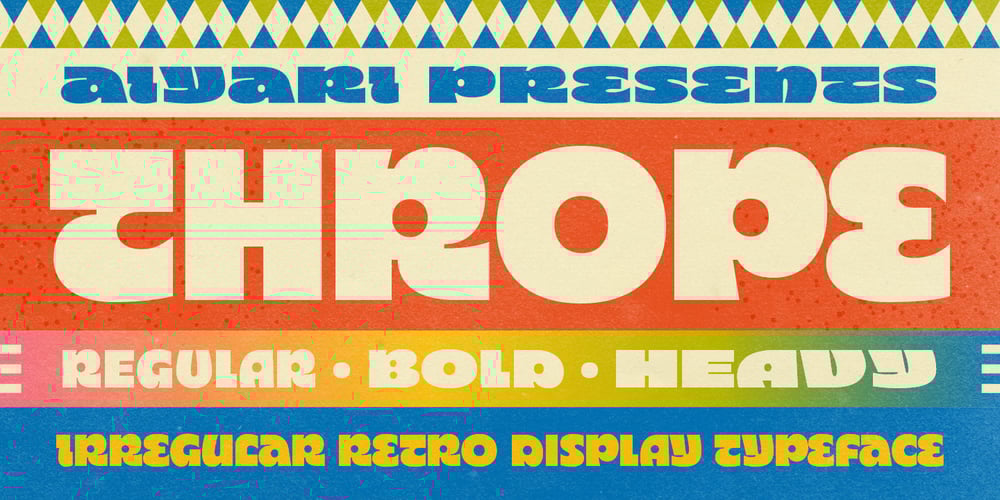
Ayr Thrope Font Family was designed by Ricky Rinaldi and published by Aiyari. Ayr Thrope contains 3 styles and family package options. Introducing Thrope the irregular retro display font family heavy influence by motter ombra typeface, geometric basic shape, and 60s to 70s pop culture. Thrope typeface includes 3 font family (regular, bold,& heavy) it comes with stylistic alternates 01-04 & ligatures.Thrope font family best used for logotype, headline, header, signage.